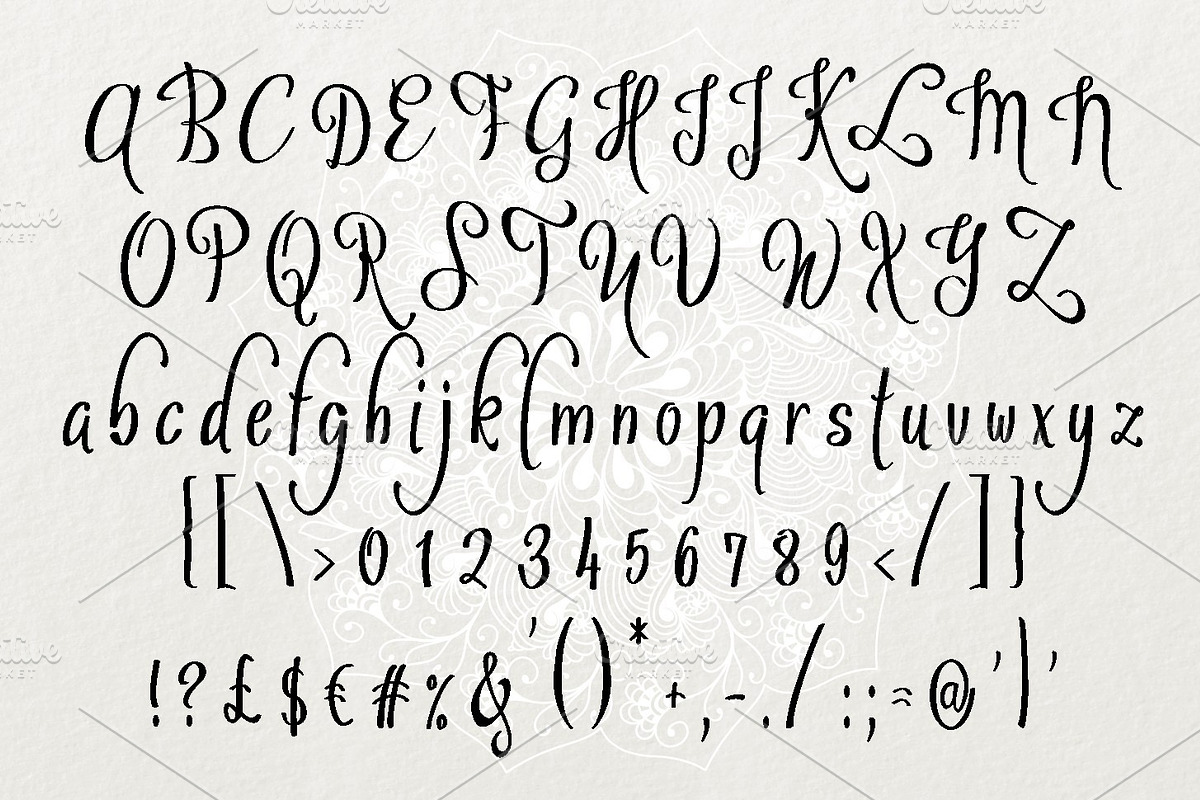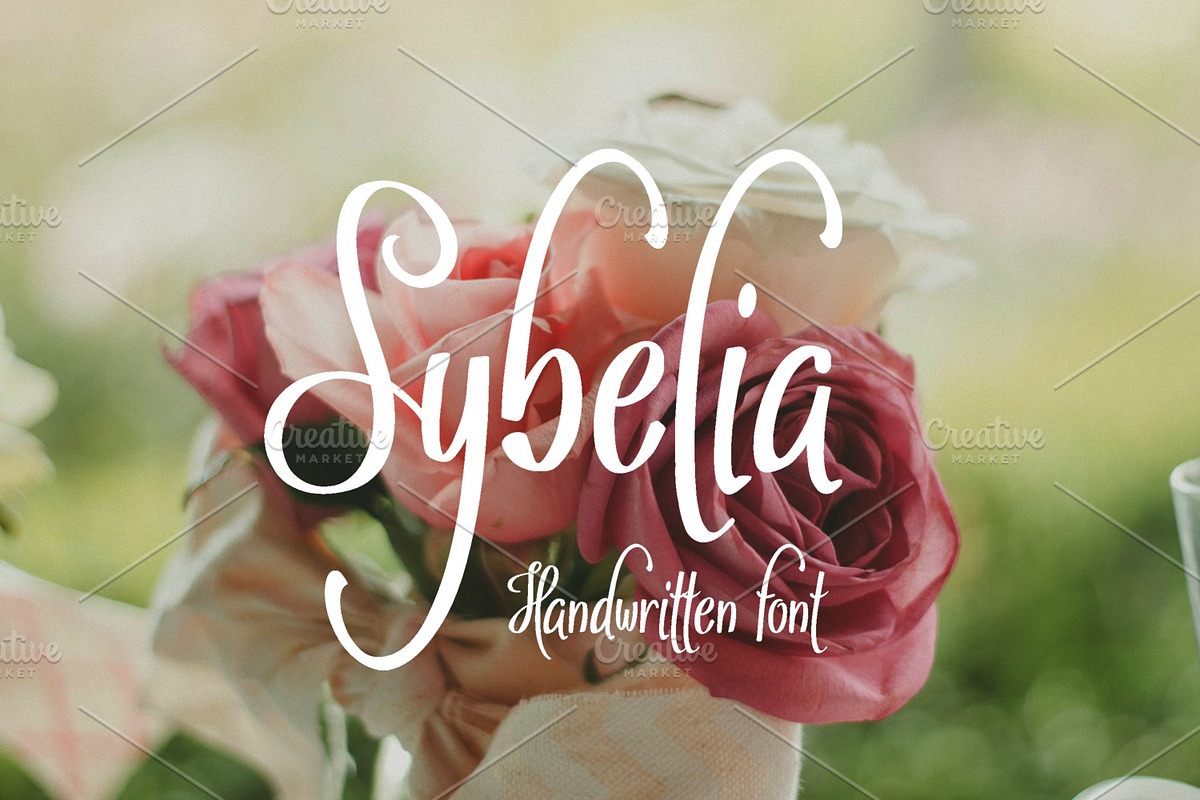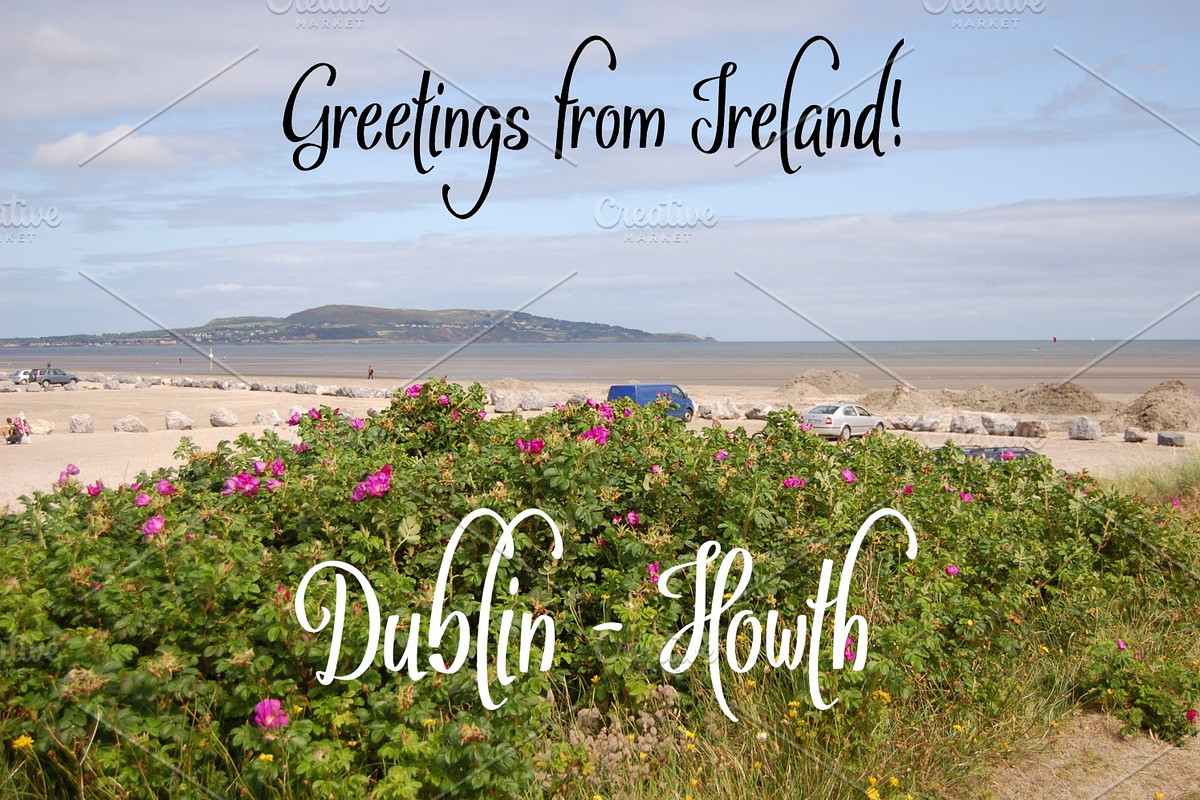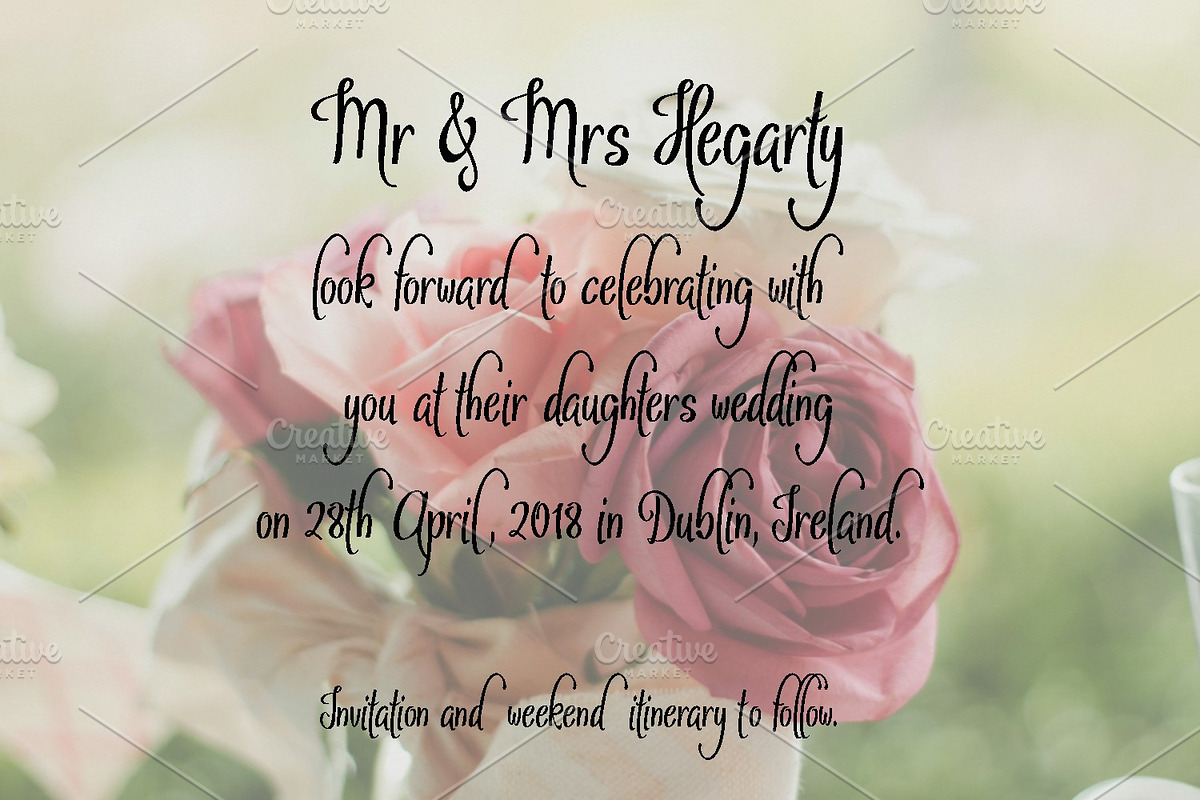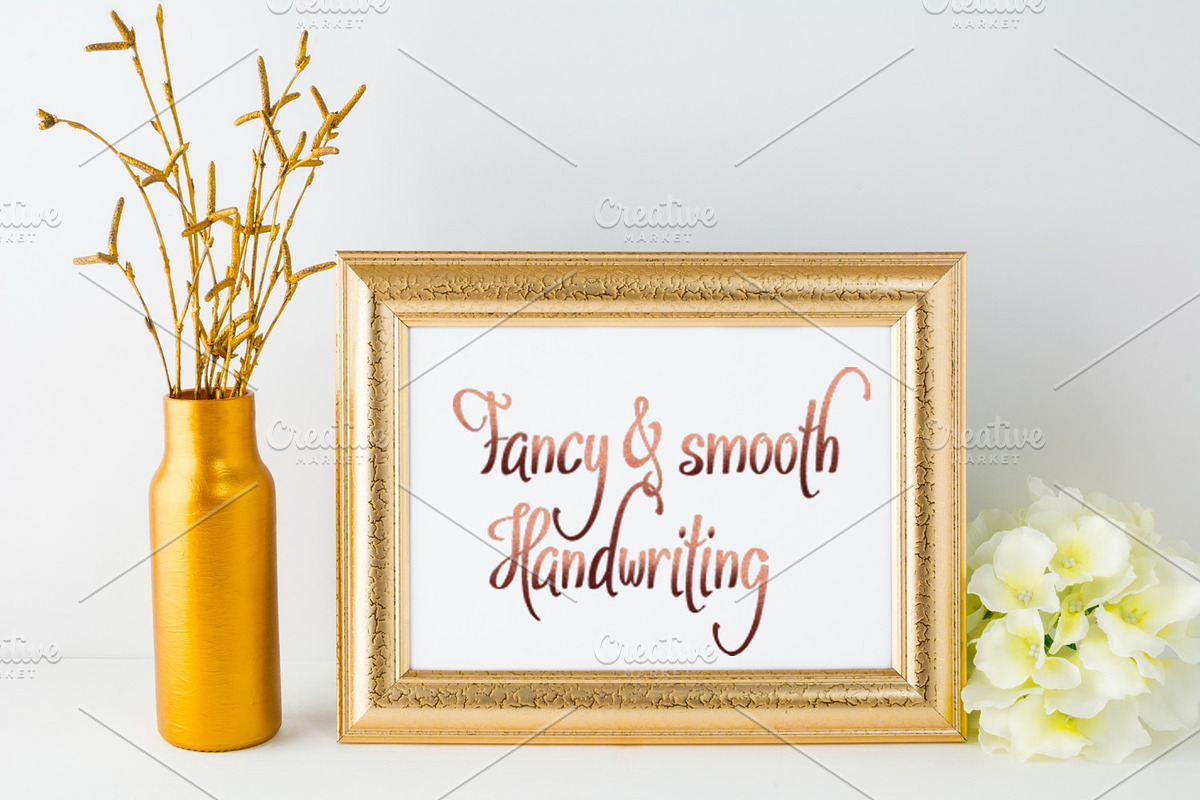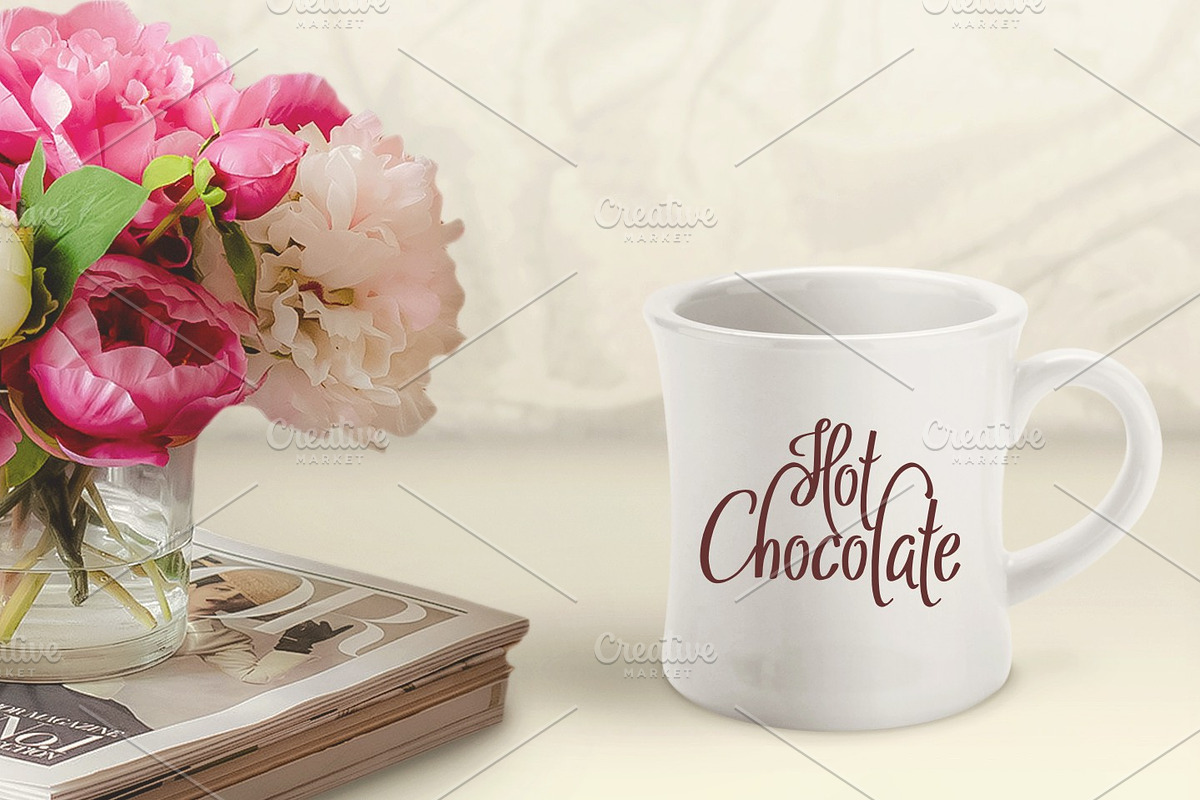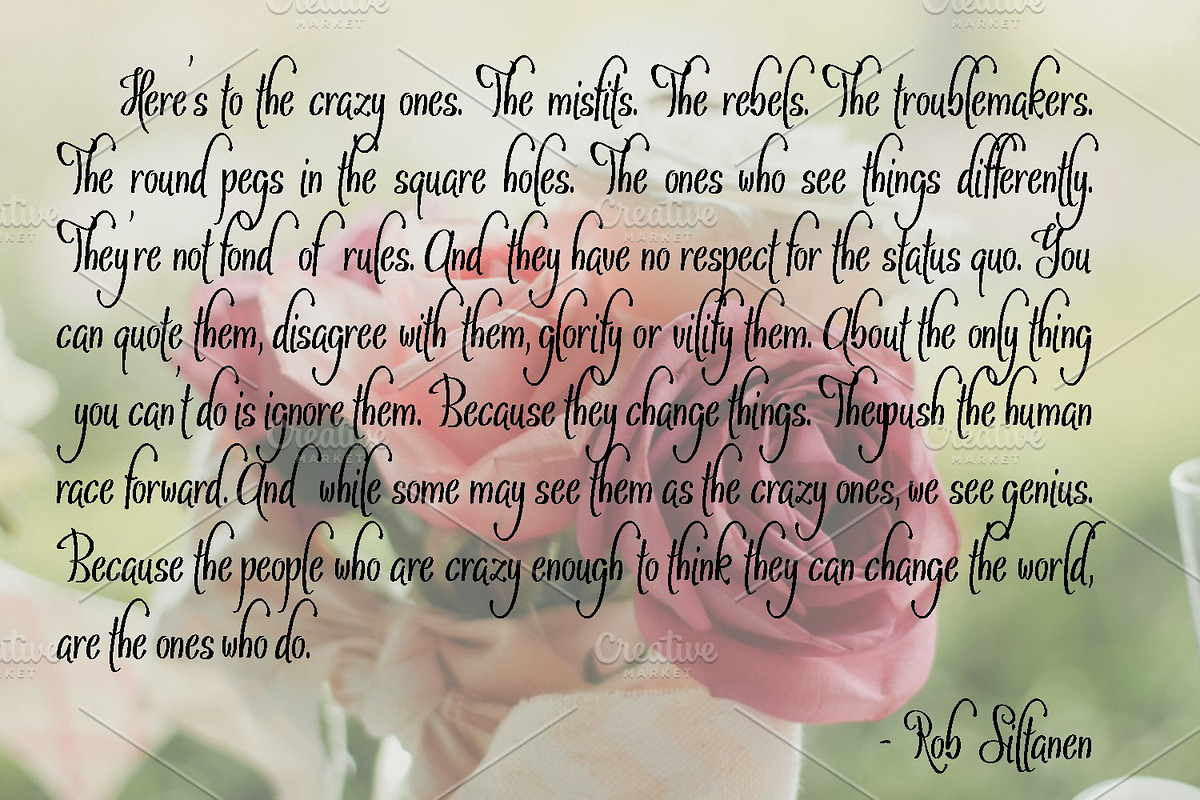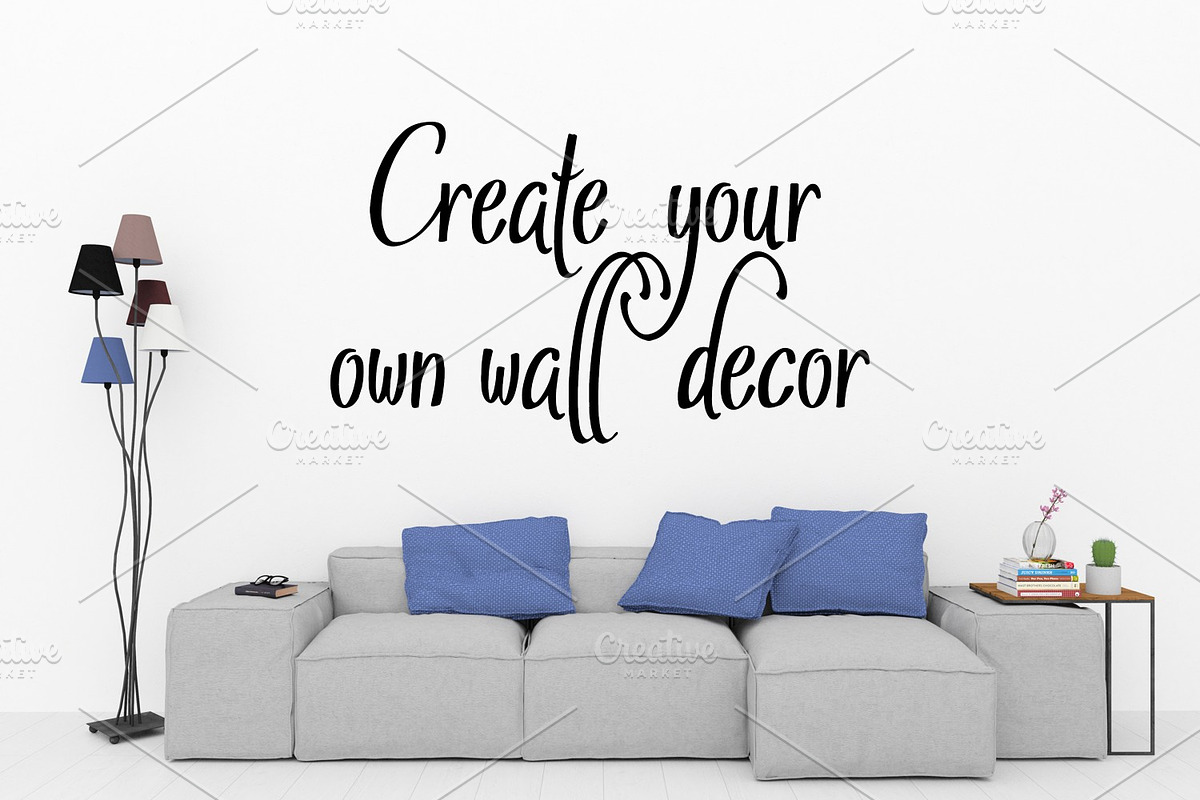
Sybelia
Introducing Sybelia handwritten typeface. Great for cards and many craft projects! Download and use across a huge range of programs such as Adobe programs, Corel programs, Cricut and many others!
Sybelia by Digital Typeface Studio fits naturally into Branding, posters, packaging, typography.